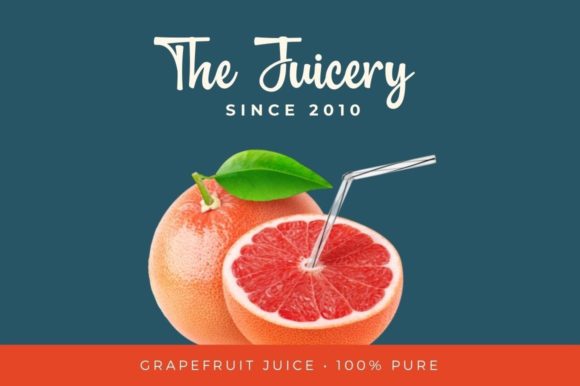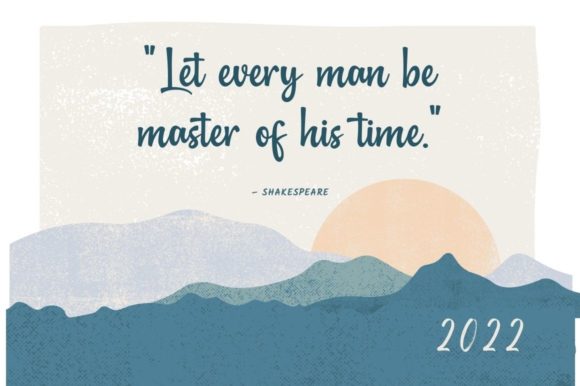
Southern Beach Font
db-ku.com - Script & Handwritten -- Southern Beach is a casual paint brushed script font. It is perfect for branding, invitation, stationery, wedding designs, social media posts, advertisements, product packaging, product designs, label, photography, watermark, special events, and more.